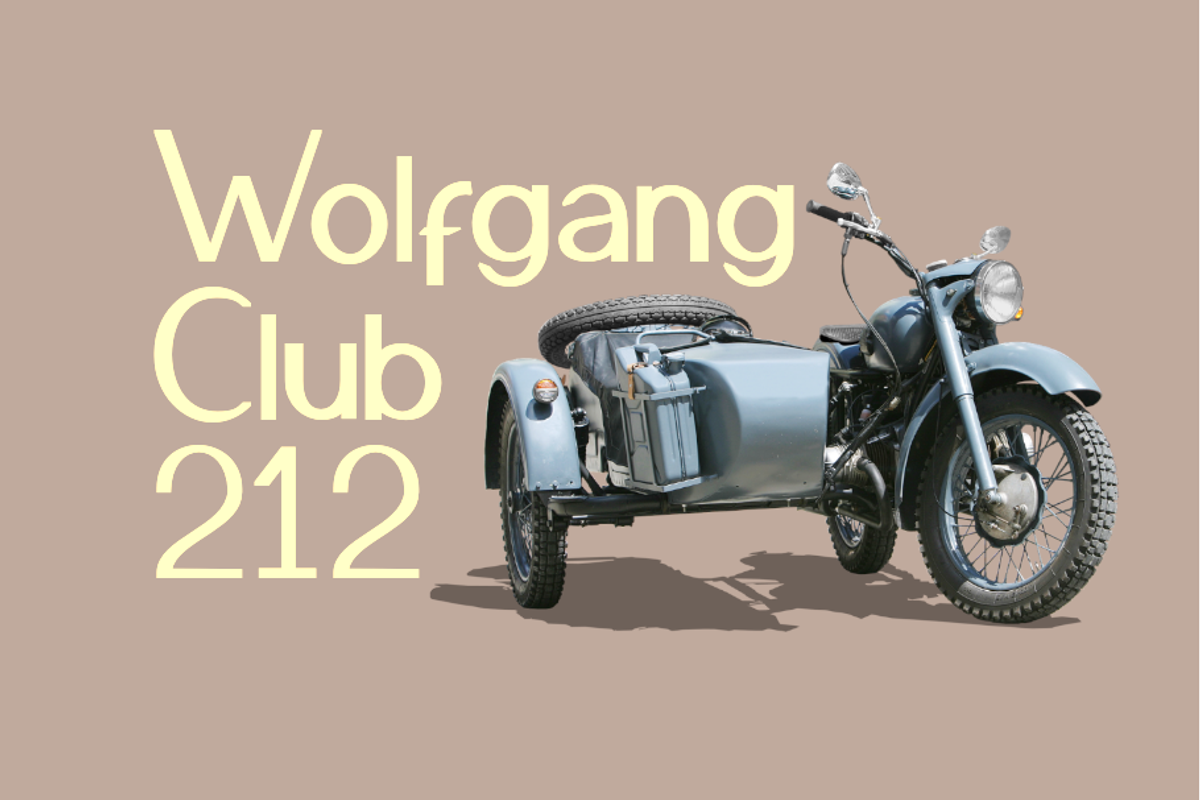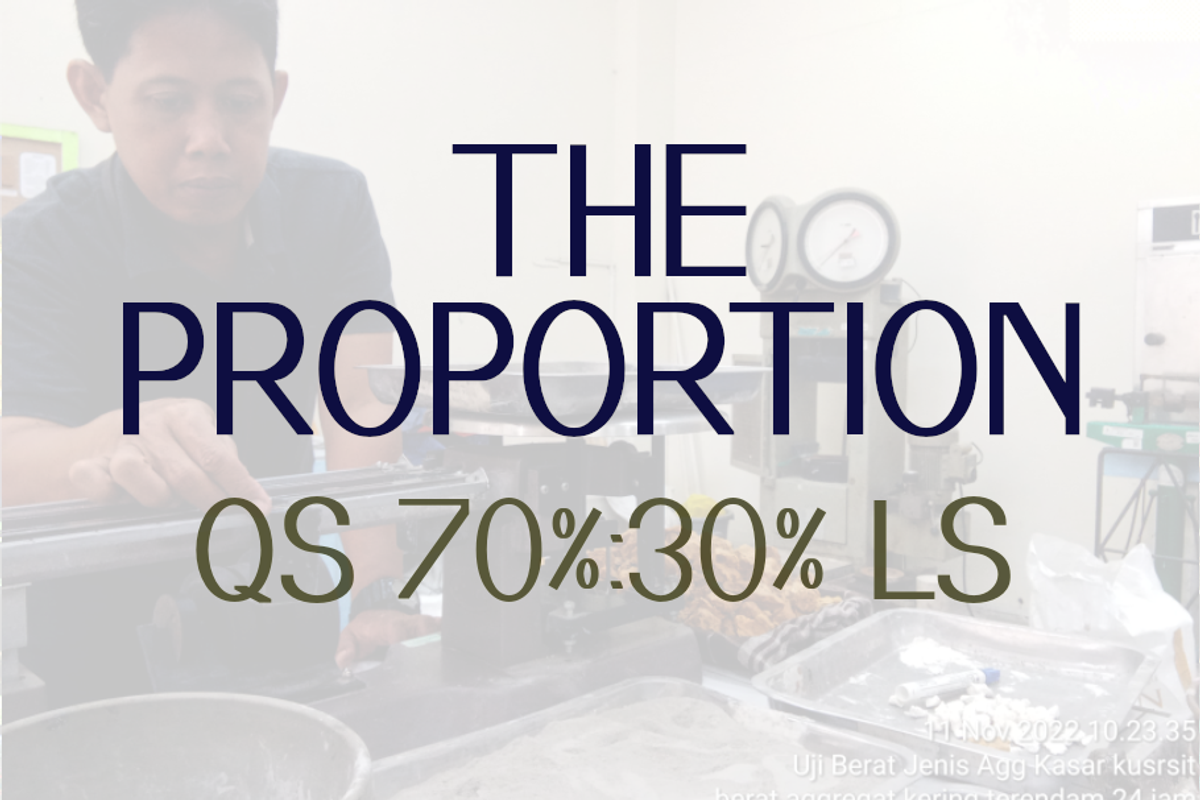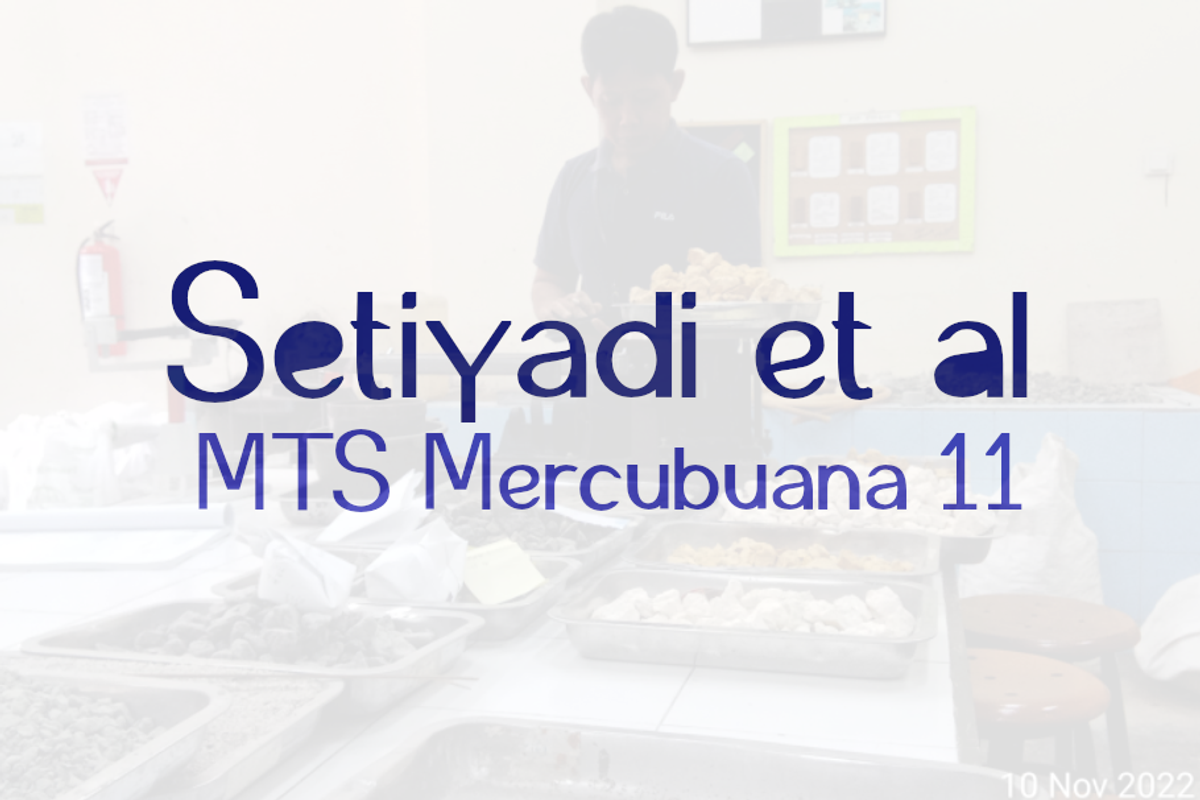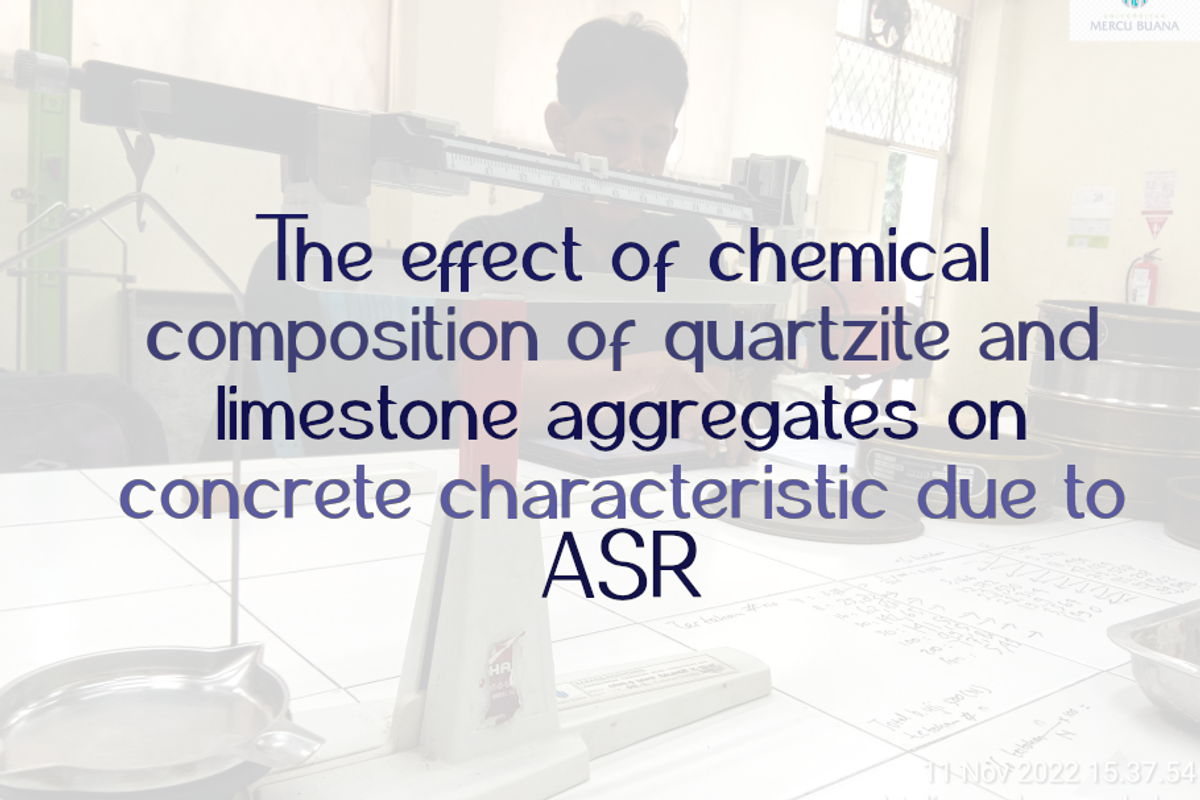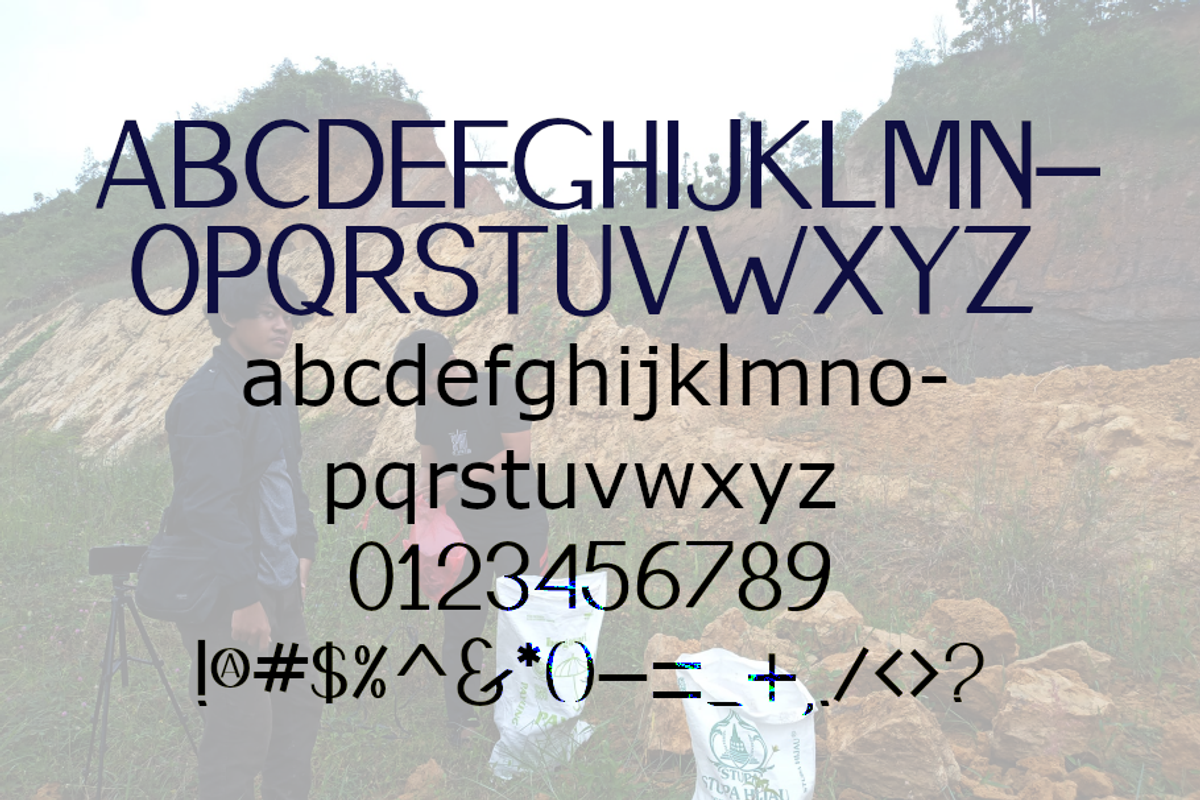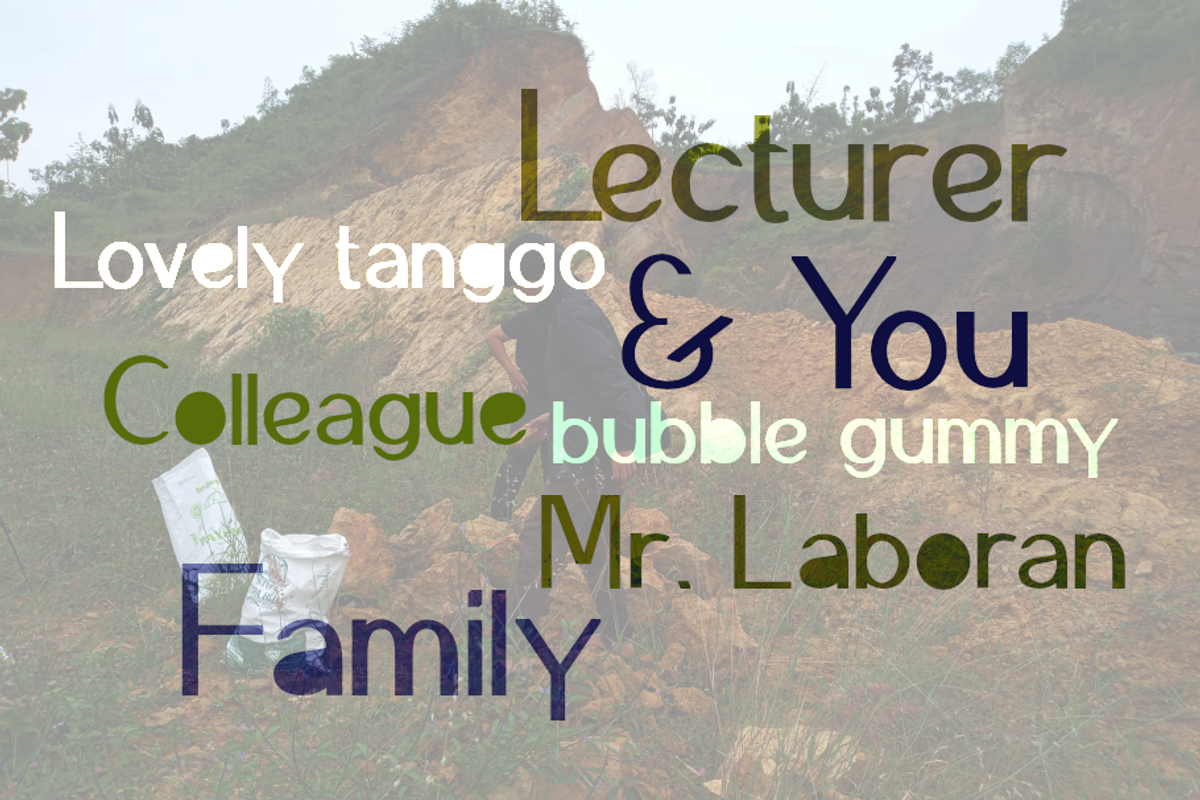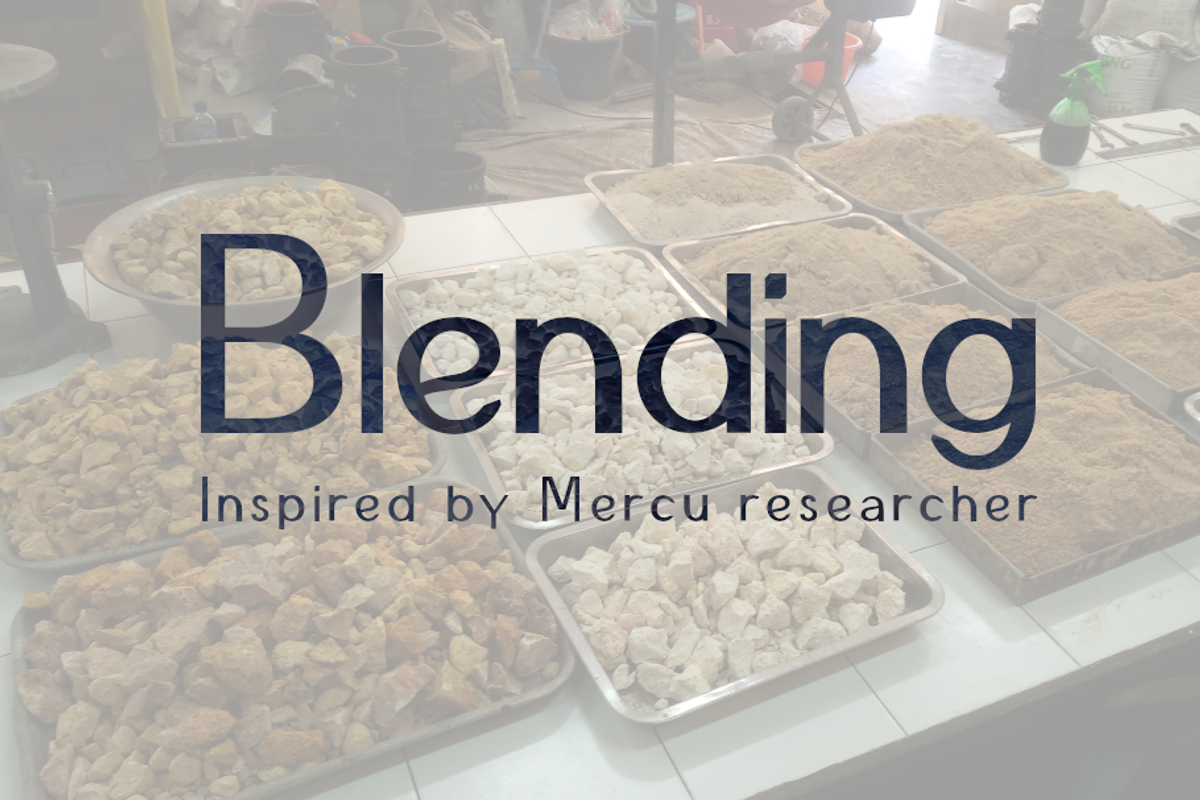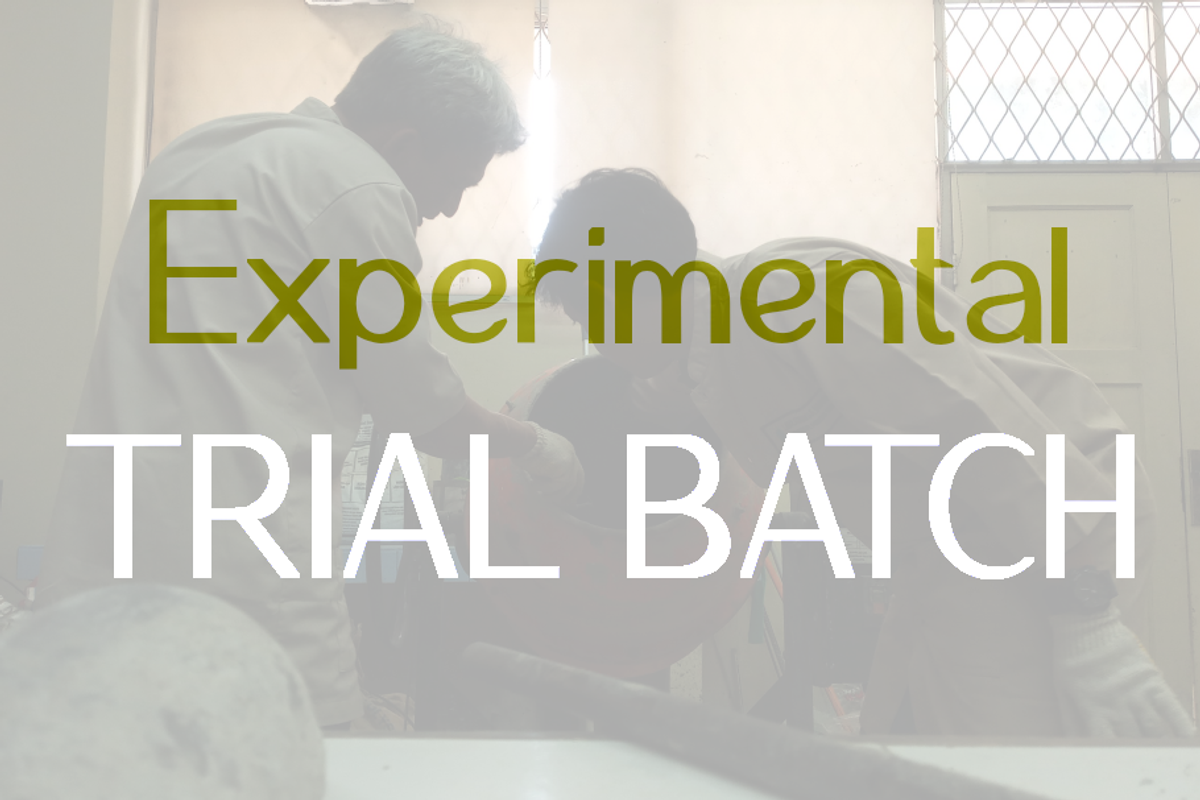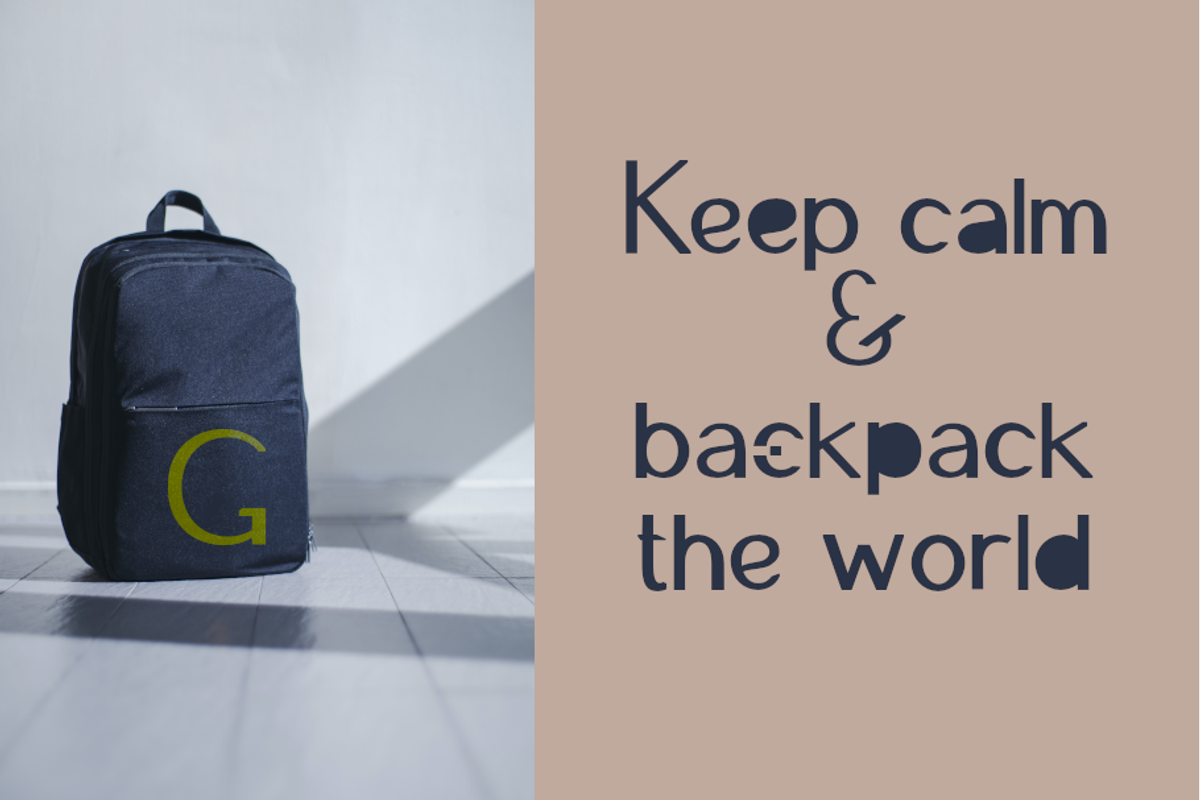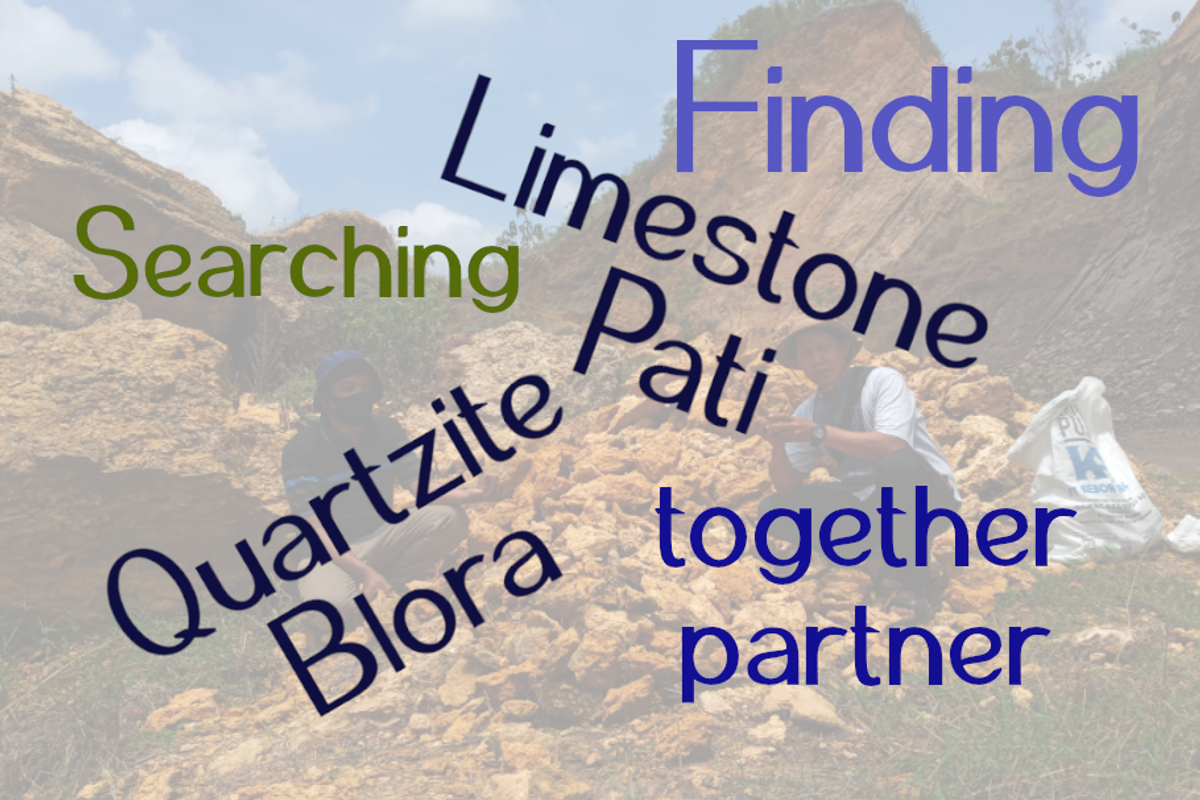
Blending simple sans
Blending simple sans is a simple and assertive sans-serif font. No matter the topic, this font will be an incredible asset to your fonts’ library, as it has the potential to elevate any creation.